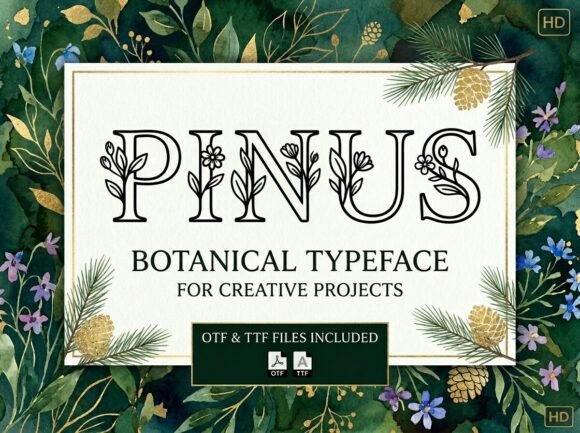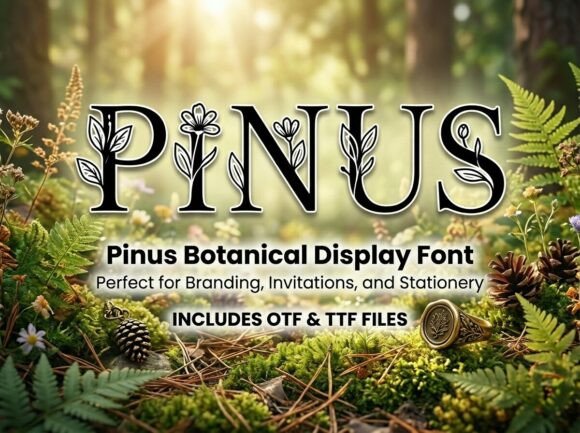
Introduction to Pinus Font
Have you ever stumbled upon a hidden garden, surrounded by lush greenery and vibrant flowers, and felt an instant surge of creativity? That’s exactly what the Pinus Font aims to evoke – a sense of serenity and natural beauty. This exquisite display typeface is a masterful blend of classic serif letterforms and hand-drawn botanical elements, making it the perfect design resource for creatives looking to add a touch of elegance to their projects.
Whether you’re working on a free download for a client or designing a high-quality logo for a new business, the Pinus Font is an invaluable asset. Its transparent background allows for seamless integration into any design, while its high-quality details will make your project stand out. From modern wedding invitations to artisanal skincare branding, this font is the perfect choice for any creative project that requires a touch of whimsy and sophistication.
With its timeless elegance and organic charm, the Pinus Font is a game-changer for designers looking to add a unique touch to their work. And the best part? It’s available for use in your next project, waiting to bring your vision to life.
Key Features of Pinus Font
- Unique characteristics: Pinus Font features a natural, organic design aesthetic, making it perfect for outdoor-themed, nature-inspired, and eco-friendly projects.
Honest Review: Pinus Font
I recently had the chance to work with Pinus Font, and I must say it’s been a pleasant experience. This free download has been a game-changer for my design projects.
- High-quality typography: The font is crisp, clean, and perfect for creating a professional look in any design.
- Transparent background: This feature has saved me a lot of time in editing, as I can easily adjust the background to suit my creative project’s needs.
- Perfect for creative projects: Pinus Font is versatile and can be used in a wide range of design projects, from logos to brochures.
- Limited character set: While the font is high-quality, the character set is somewhat limited, which can be a drawback for complex design projects.
- No customization options: As a free download, I understand that there are some limitations, but it would be great to have more customization options.
Overall, I’m impressed with Pinus Font. It’s a great design resource that can elevate any creative project. While it has some limitations, the pros far outweigh the cons. I would definitely recommend it to fellow designers looking for a high-quality, free font.
Pinus Font
Pinus Font is a high-quality, versatile design resource ideal for creative projects. This font features a transparent background, making it easy to integrate into various design applications.
Tips for Getting the Most Out of Pinus Font
Experiment with different font sizes, colors, and combinations to achieve unique and captivating designs. Pinus Font is perfect for creating eye-catching titles, headings, and body text.
Pinus Font is suitable for a wide range of projects, including:
- Typography-based art
- Blog posts